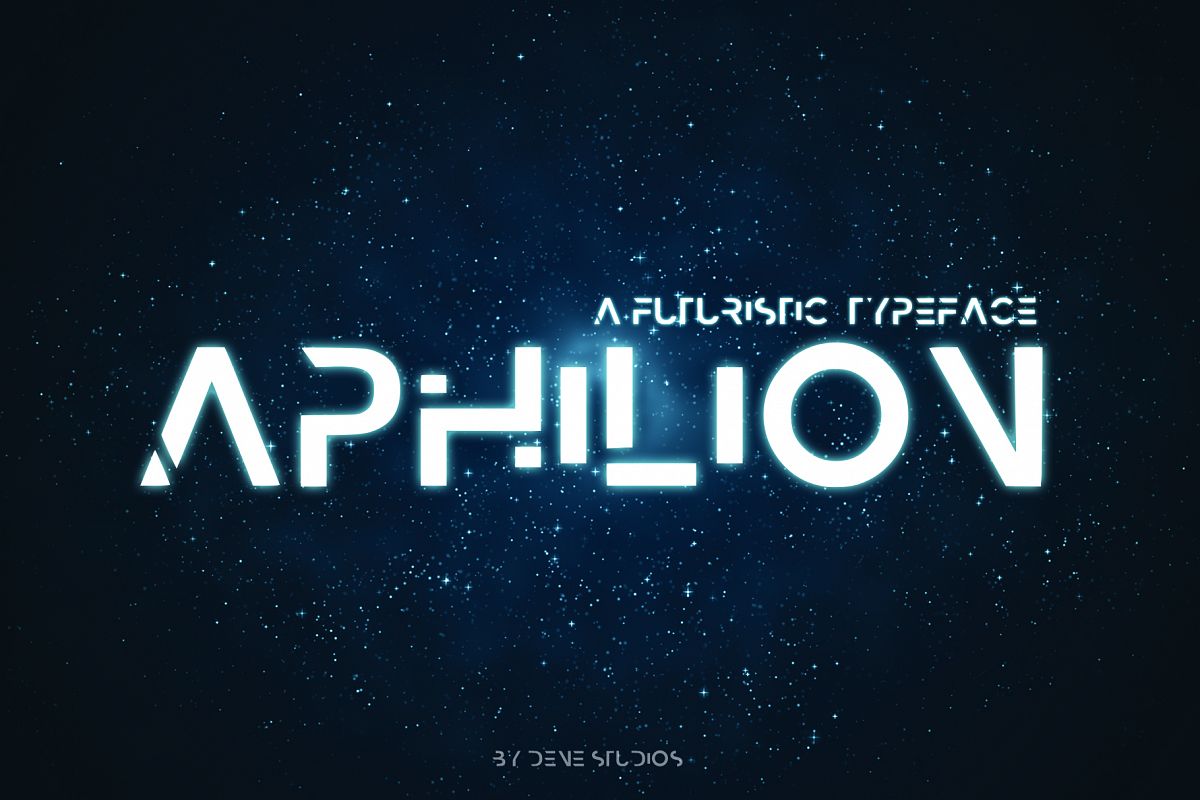
APHILION - A Futuristic Typeface
Aphilion is a unique and creative design that has been passionately handcrafted to give you a futuristic typeface. Inspired by sci-fi, this font is perfect for your next project, especially if you want to give a futuristic feel.